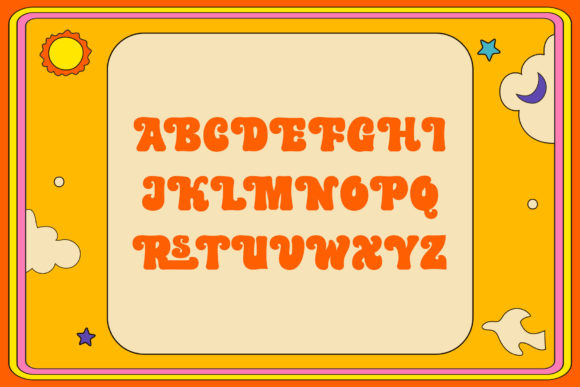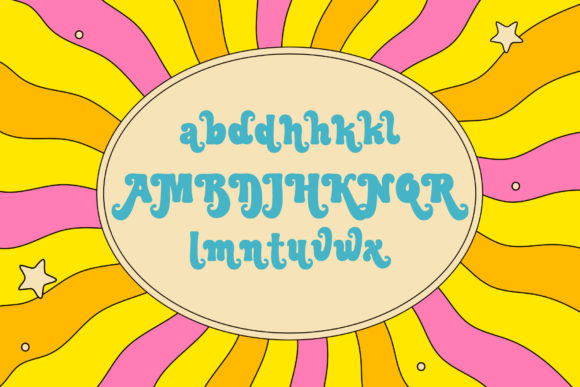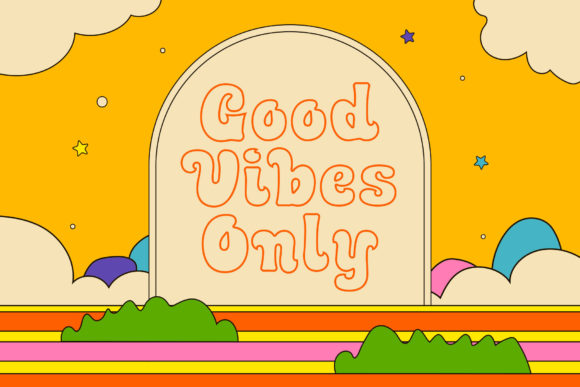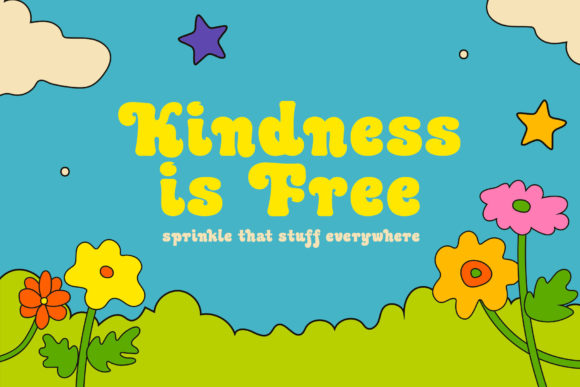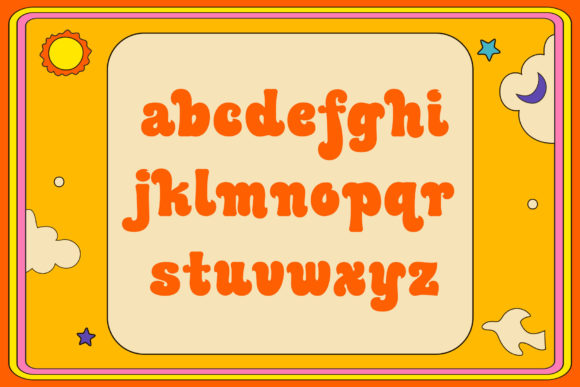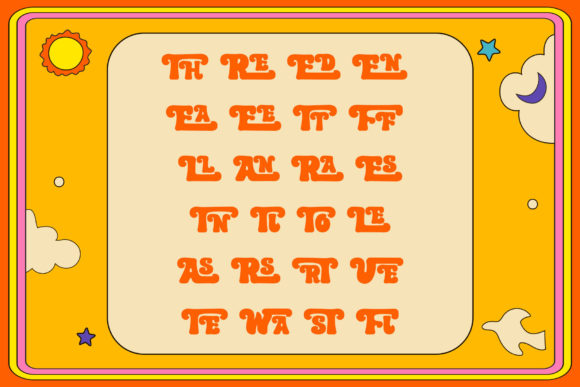
Introduction to Kool Beans Font
Kool Beans is a 1960-70s inspired slab serif font that embraces the groovy psychedelia era.
This font is perfect for any project that requires an authentic retro feel Kool Beans is perfect for magazine covers, social media posts, quote posters, book covers, merchandise, websites, advertising, branding, and more.
Key Features of Kool Beans Font